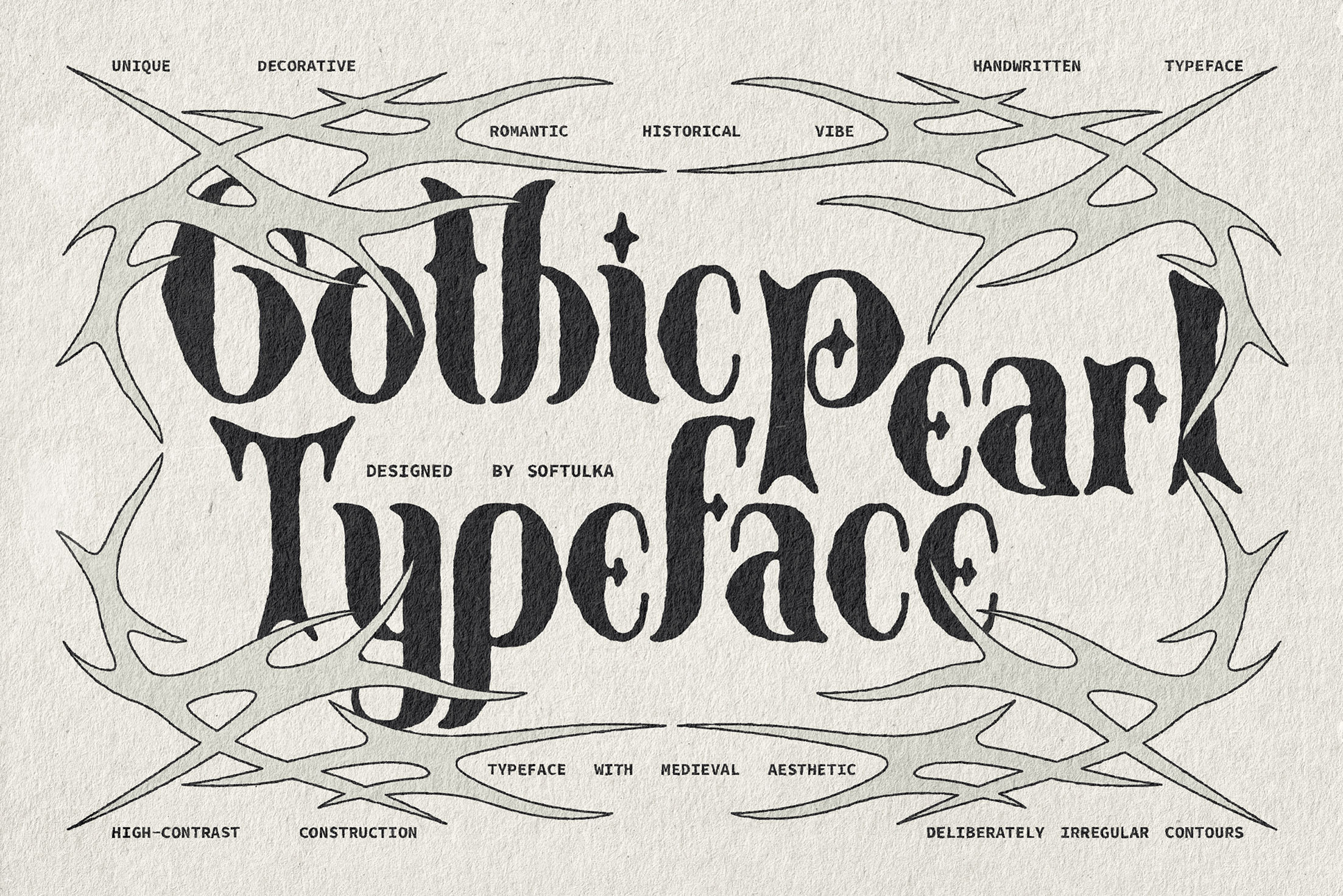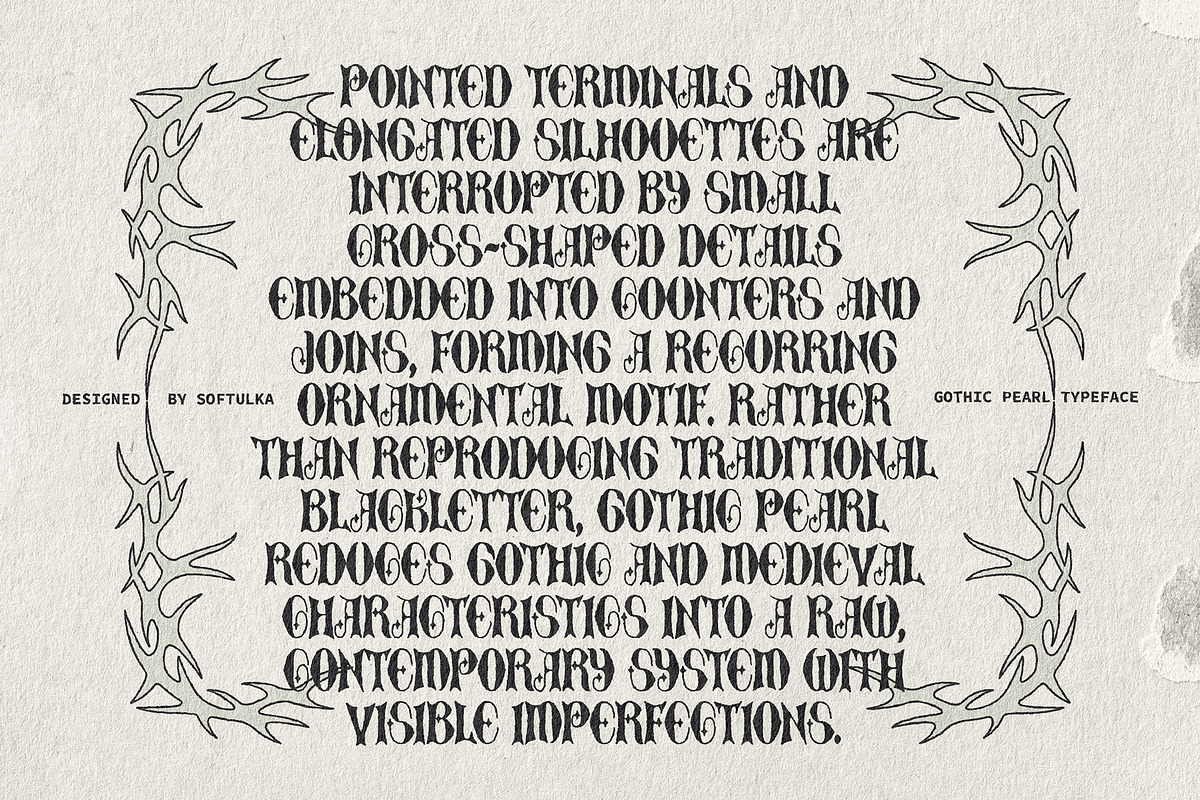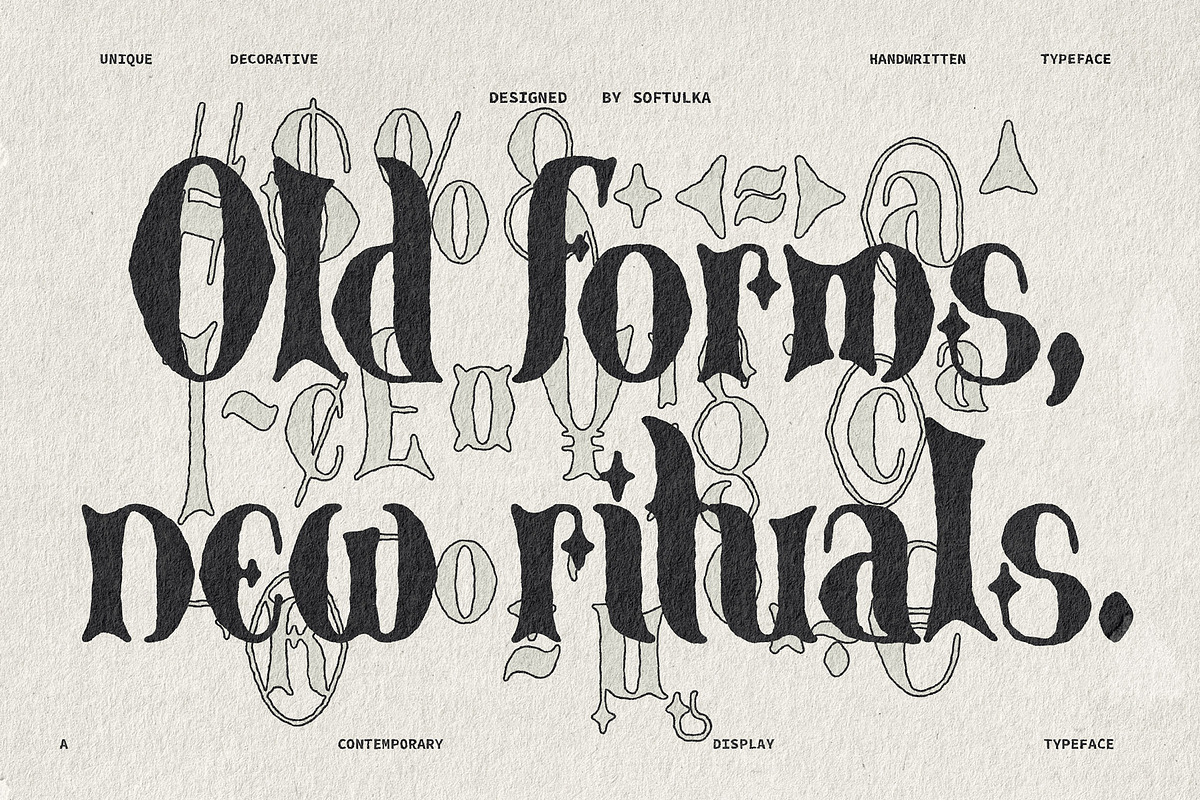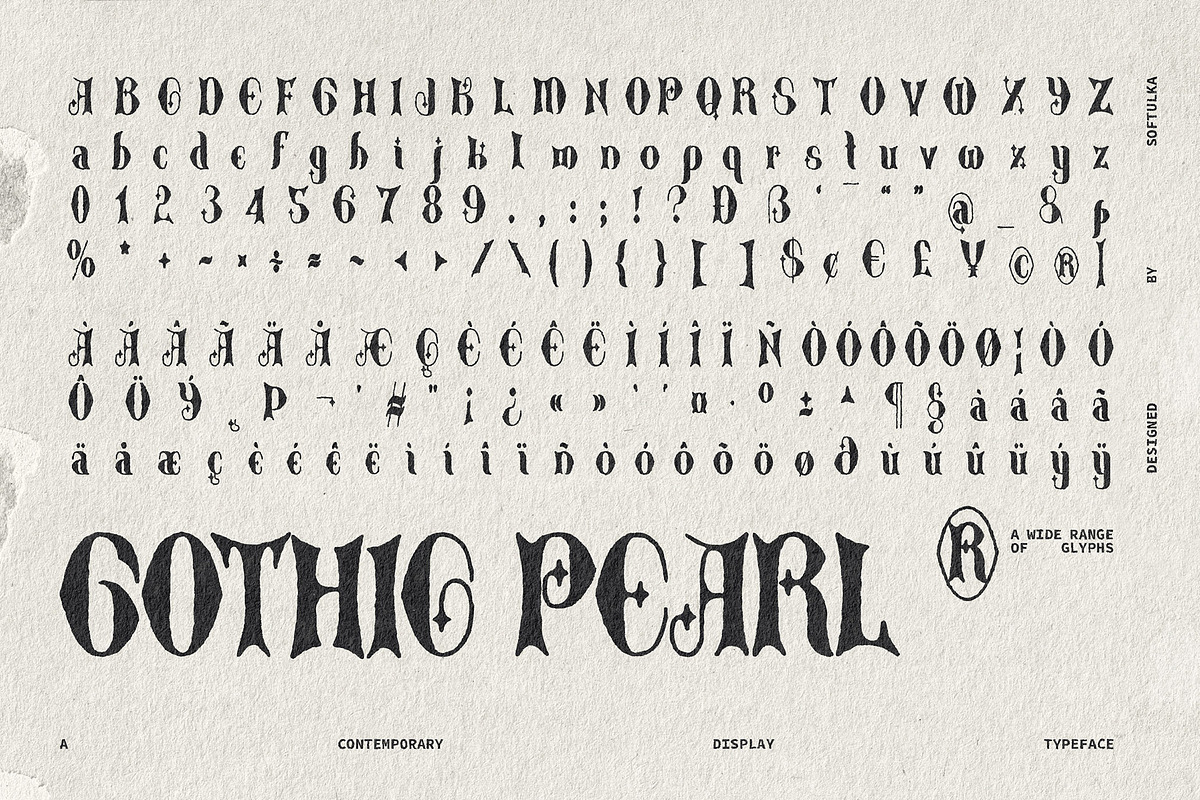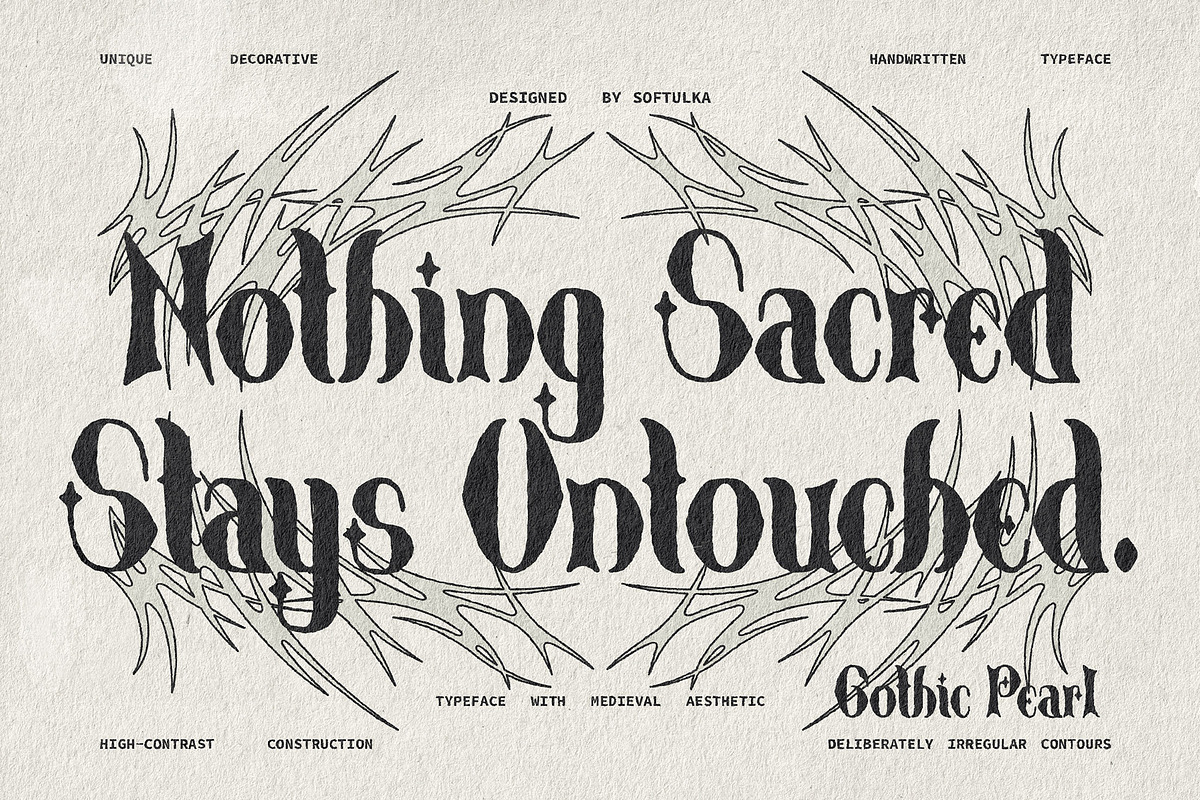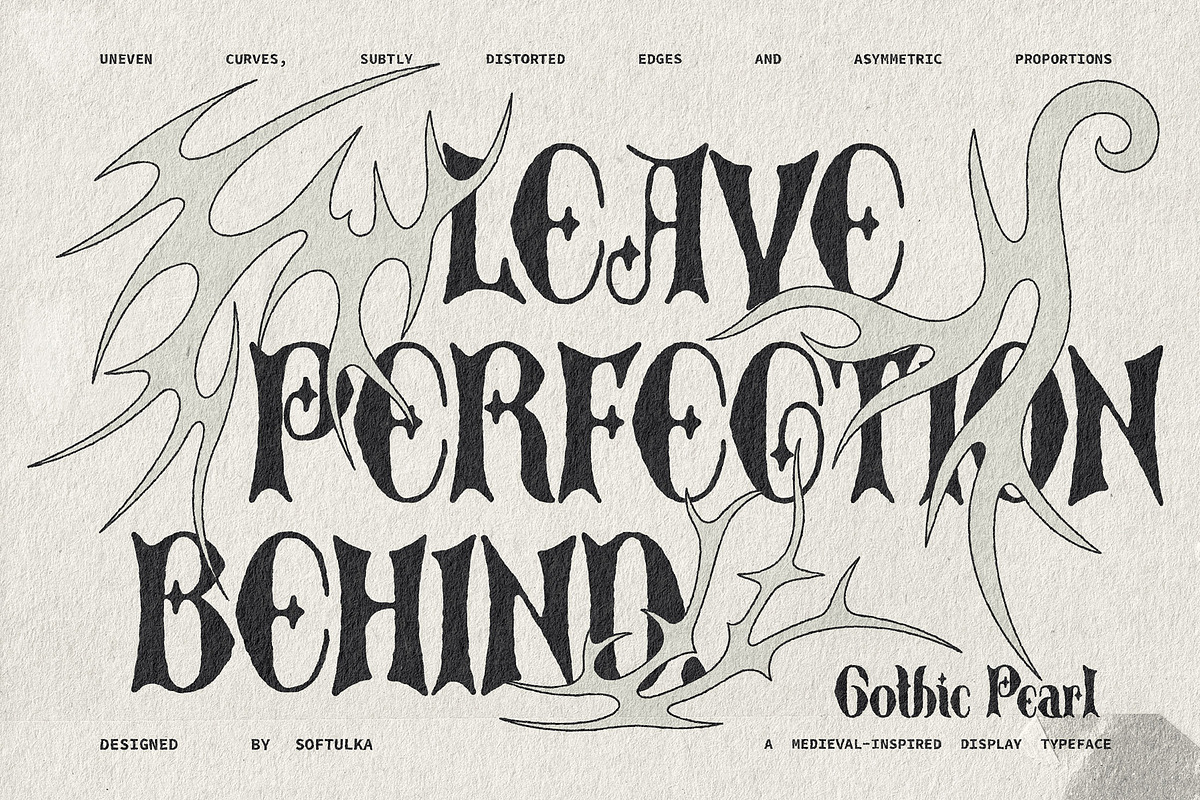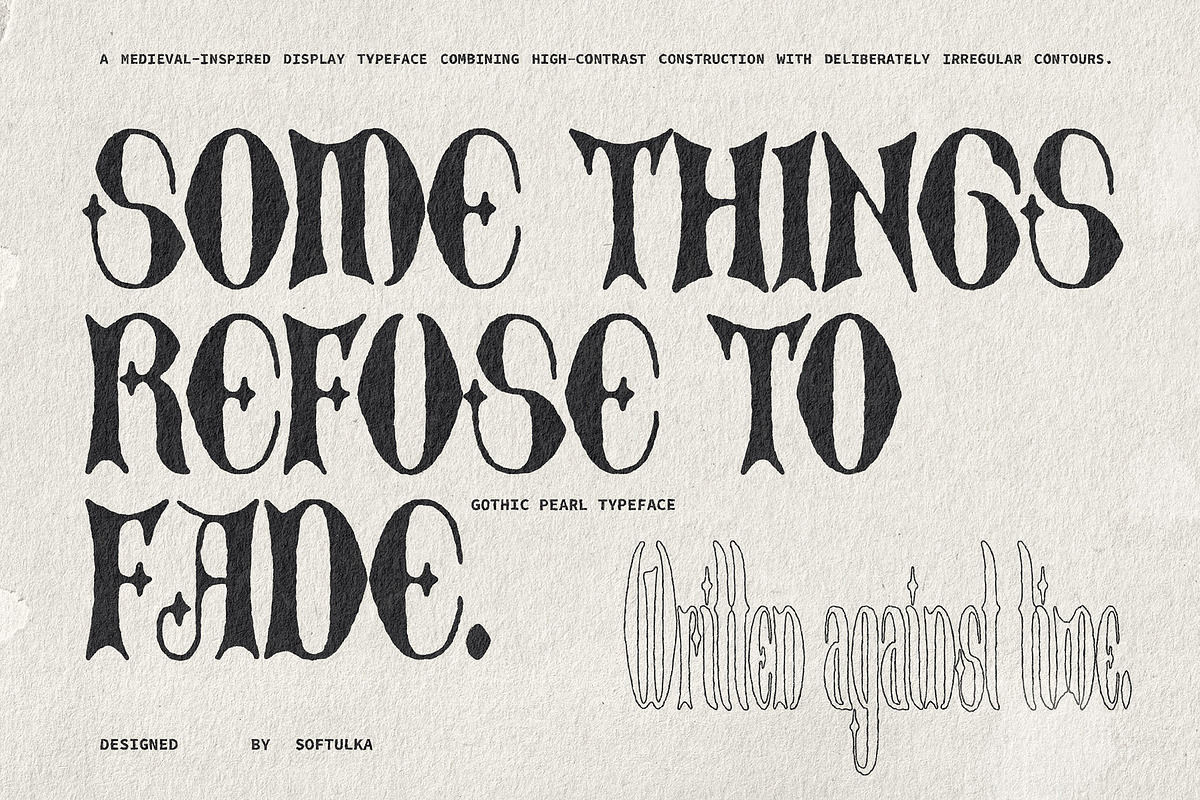
Gothic Pearl Typeface
Style / Mood
Medieval, Gothic, Manuscript, Calligraphic, Ornamental, High-Contrast, Irregular, Hand-Drawn, Sculptural, Contemporary
Gothic Pearl is a medieval-inspired display typeface combining high-contrast construction with deliberately irregular contours. Narrow strokes meet dense black forms, while uneven curves, subtly distorted edges and asymmetric proportions give the letters a hand-shaped, manuscript-like structure. Pointed terminals and elongated silhouettes are interrupted by small cross-shaped details embedded into counters and joins, forming a recurring ornamental motif. Rather than reproducing traditional blackletter, Gothic Pearl reduces gothic and medieval characteristics into a raw, contemporary system with visible imperfections. Designed for titles, covers, posters, packaging, editorial display and identity work.